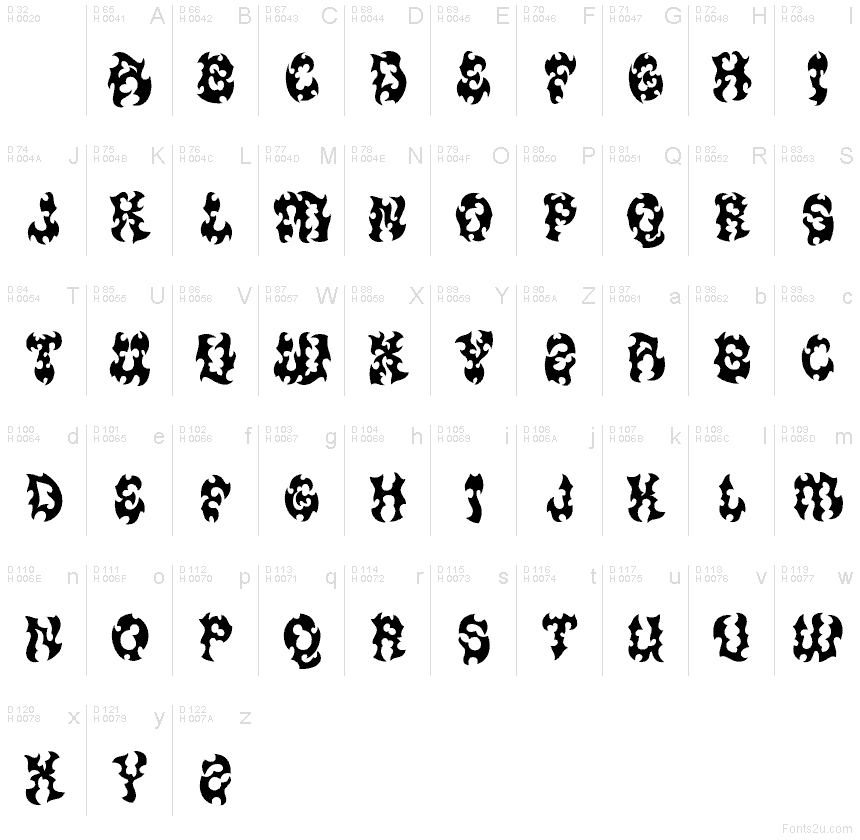
CS Demure Regular Demo
CS Demure font from Craft Supply Co. is a display decorative typeface with a fire-inspired style and an overall bold appearance. It provides all the elements necessary to bring your projects to life in a new manner, combining well-designed letters and chaotic ornamental characters.
This free dark mysterious font can be used for logos, posters, banners, advertisements, websites, apps, book titles/covers, business cards...